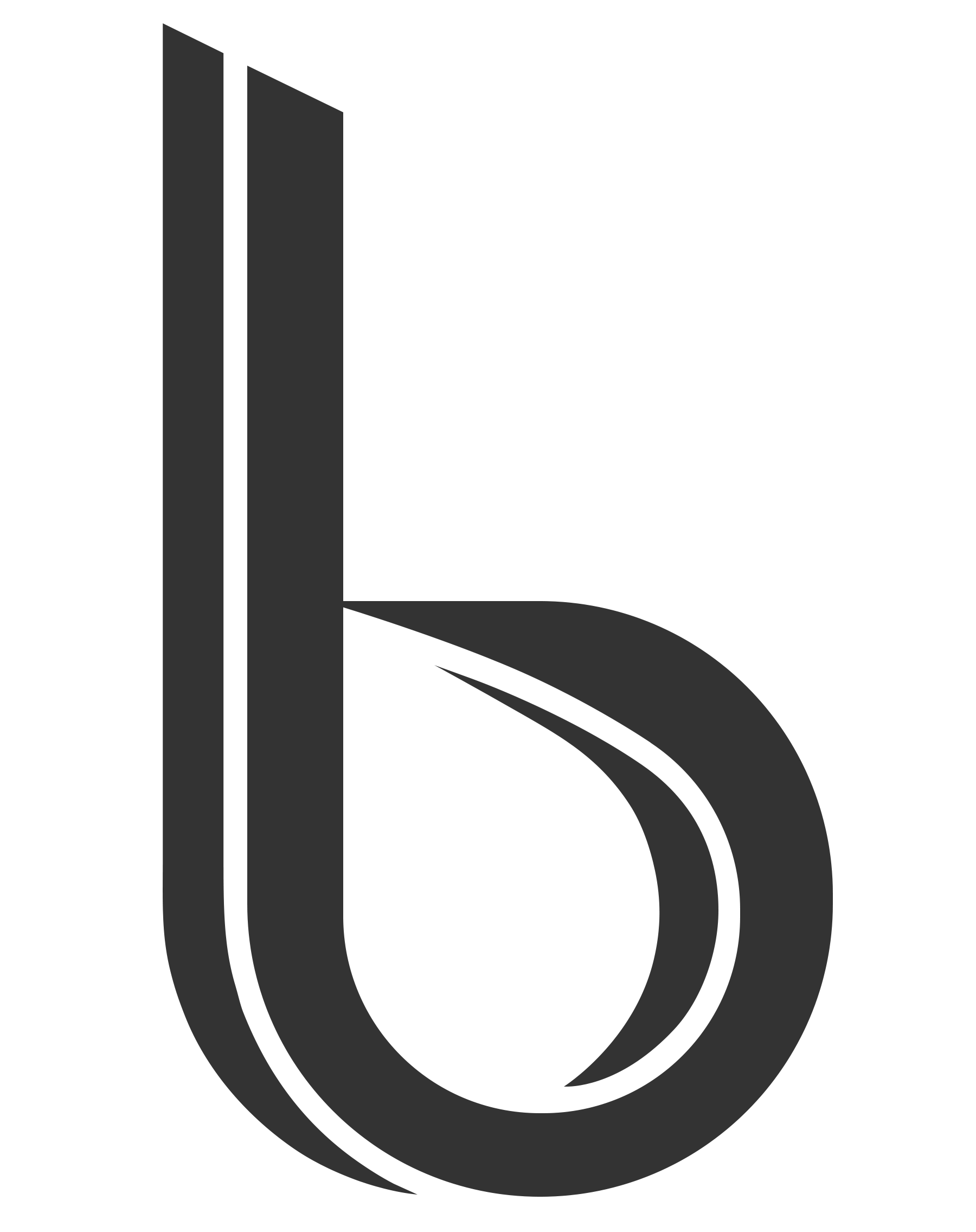
Hi! I’ve done this logo but i’m struggling in finding a font for the brand name to put under it. Can you give me suggestions?
It’s not just a visual font-compatibility question. The shape of the words themselves, the nature of the brand’s personality, and that of its market, possible applications (signage, tags, embroidery, etc.), and more, are all factors in making a good choice. Sure anyone here can blindly make suggestions, but in the end you’ll have to undertake the real work of experimenting with dozens of possibilities and narrowing it down based on those criteria. Your time would be better spent doing that then waiting for blind, token suggestions here.
Without elaboration, one may as well suggest Comic Sans or Courier or Didot. I haven’t a clue.
Do you mean I need to say other informations?
Comic-sans is suitable for kids, children, jokes and funny stuffs.
If you can give us more information about your site or company then we can recommend a font that is related to your information.
I would go for a bold sans, not too round, maybe all caps and spaced out depending on the length of the name.
Bold because it needs weight to match the icon
Name at least twice the width of the icon using size or spacing
Nothing too round like Avant Garde or Century Gothic
Nothing too square like DIN or Eurostile
Nothing too informal like Goudy Sans or Bauhaus
Nothing too obvious like Helvetica
Maybe something with a hint of 30s Art Deco like Bliss or Bree. You may find a font that works but one letter really grates. Move on, don’t try to make it work. There are plenty of good sans faces out there.
Getting something appropriate to the business may be difficult if it’s too corporate but this should be taken into account.
Ok, so:
It’s a sport brand, the name Is Bavaro Goalkeeping and the logo represents a monochromatic B. It will be used on websites, on goalkeeper gloves and on apparel. If you need more information ask me and sorry for not giving any before.